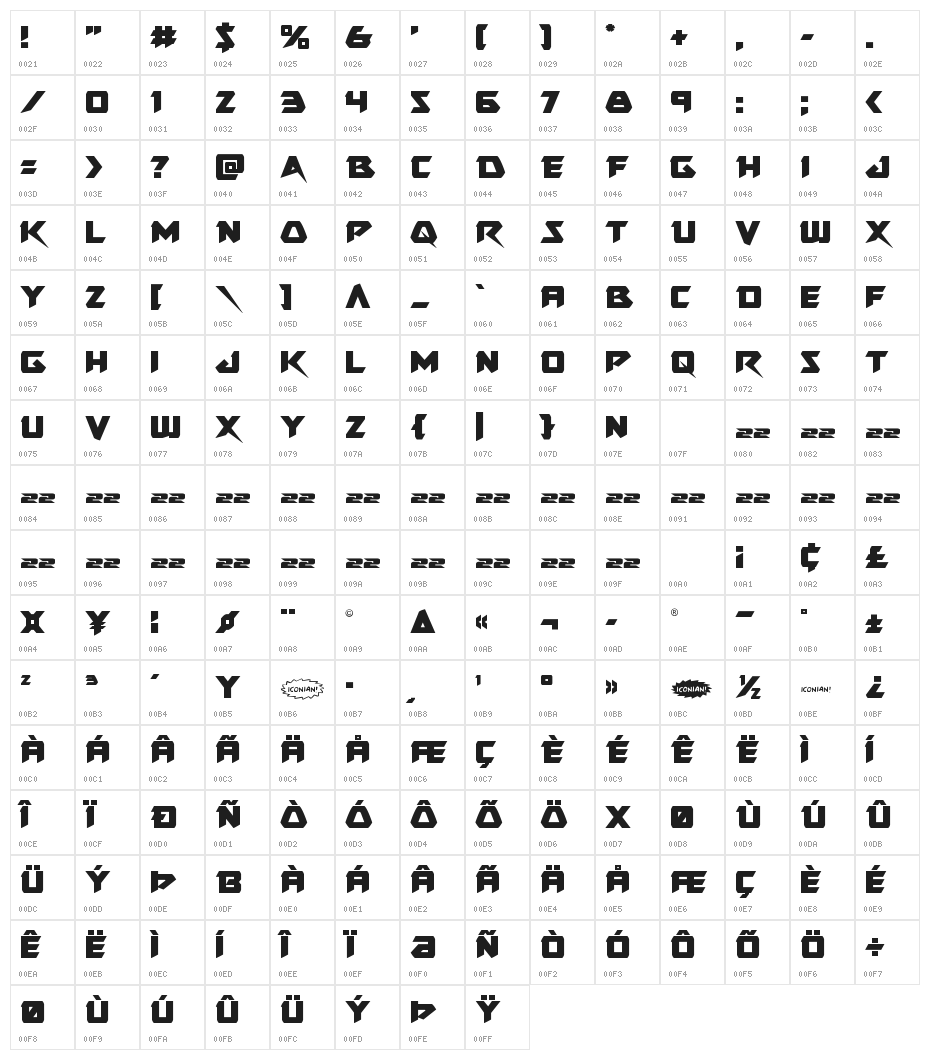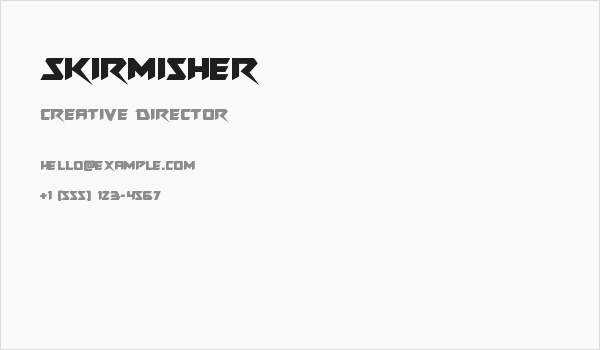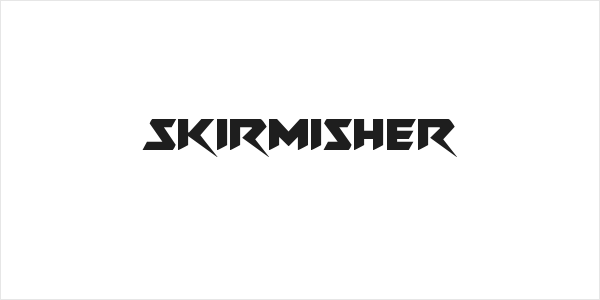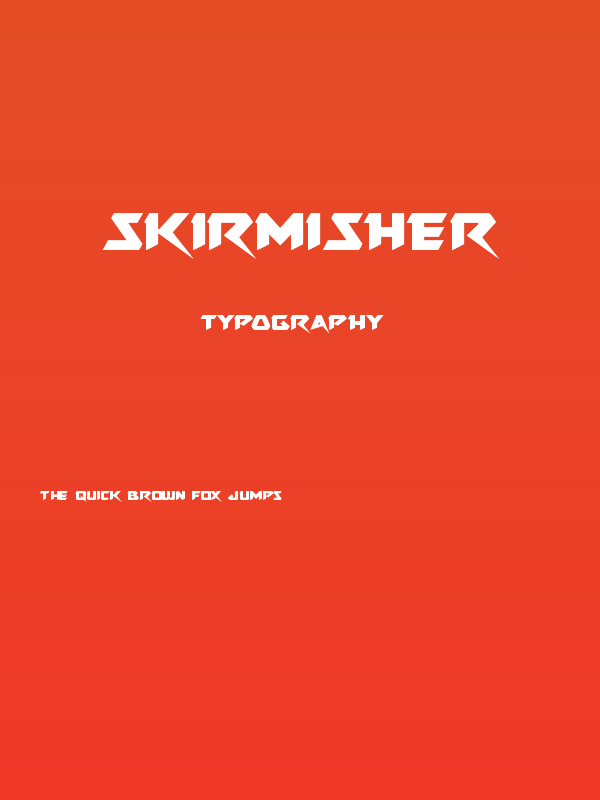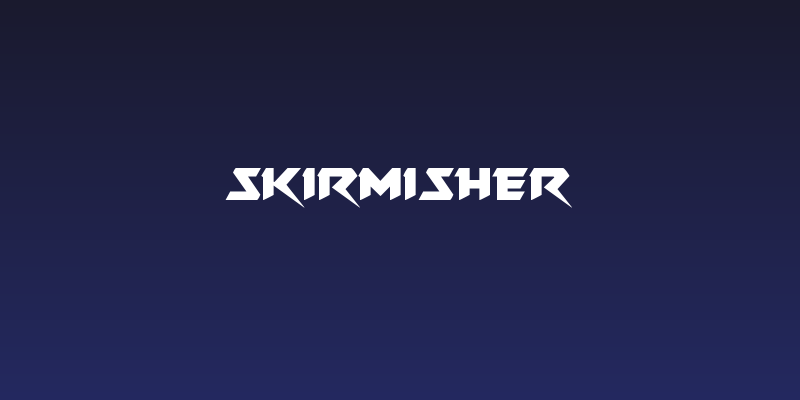
Skirmisher Font
Skirmisher Description
This font features a bold and aggressive design with sharp, angular edges and a futuristic aesthetic. The characters are heavily stylized, with pointed tips and geometric shapes that convey a sense of motion and energy. The uppercase and lowercase letters maintain a consistent style, emphasizing the font's unique personality. Numbers and special characters are equally bold, ensuring a cohesive look across all text elements. The font's striking appearance makes it ideal for projects that require a strong visual impact.
| Overall Style | Futuristic, Aggressive |
| Proposed Projects | Ideal for video game titles, movie posters, sports branding, and any project needing a dynamic and impactful typeface. |